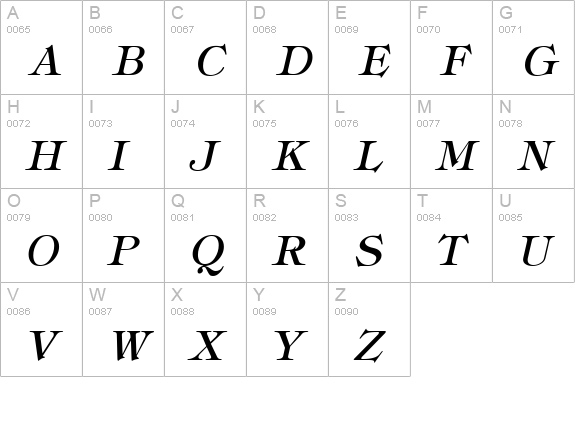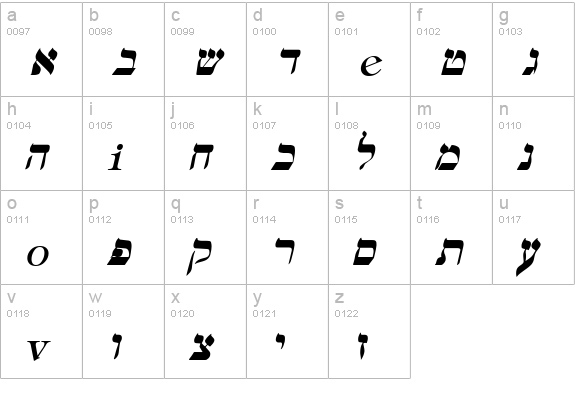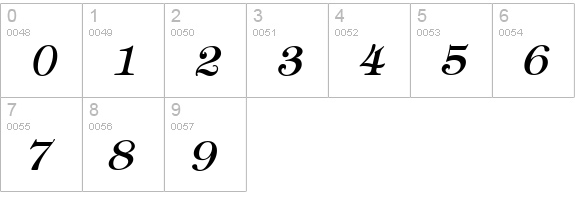
Hebrew Italic Font Details
Hebrew Italic is a distinctive, italic variant in the Hebrew typeface family \xE2\x80\x94 well suited to design and typography projects.
The Hebrew Italic font is a stunning and artistic typeface that adds a touch of elegance and sophistication to any design project. With its slanted and graceful letterforms, this font is perfect for adding a unique and stylish look to your text. This font is not only visually appealing but also highly versatile, making it suitable for a wide range of design applications. Whether you are creating a logo, designing a website, or working on a print project, the Hebrew Italic font is sure to bring a sense of beauty and professionalism to your work. One of the best things about the Hebrew Italic font is that it is available for free! That's right, you can download this amazing font without spending a penny. Simply visit FontsMarket.com and enjoy the freedom to use this font in your personal and commercial projects. The Hebrew Italic font is designed with meticulous attention to detail, ensuring that each character is beautifully crafted and visually harmonious. Its delicate curves and flowing lines create a sense of movement and elegance, making it a perfect choice for adding a touch of sophistication to your designs. Whether you are a professional designer or simply someone who appreciates beautiful typography, the Hebrew Italic font is a must-have in your font collection. Its unique style and freely available download make it a valuable resource that you can use to elevate your design projects to new heights. So why wait? Visit FontsMarket.com today and download the Hebrew Italic font for free. Bring a touch of elegance and beauty to your designs with this remarkable typeface. You won't be disappointed!